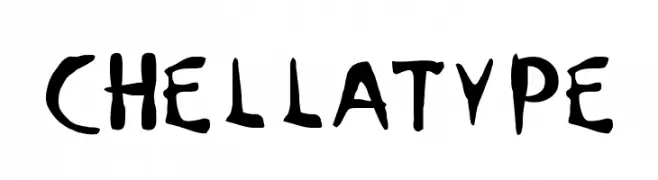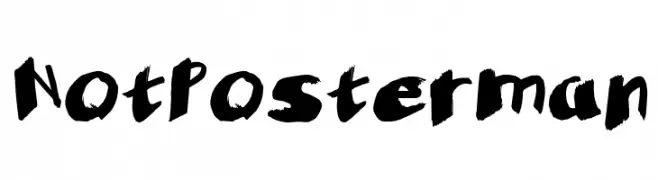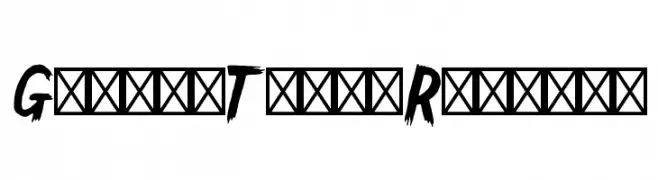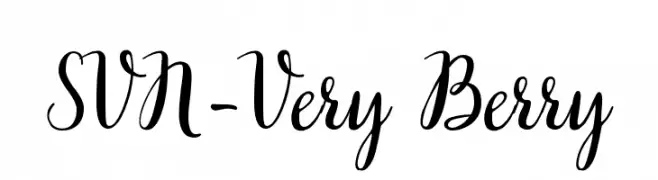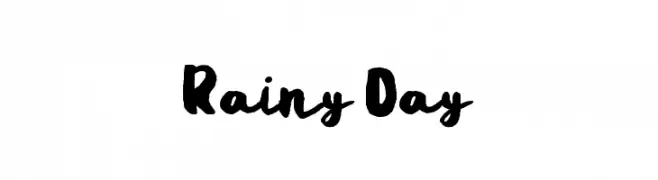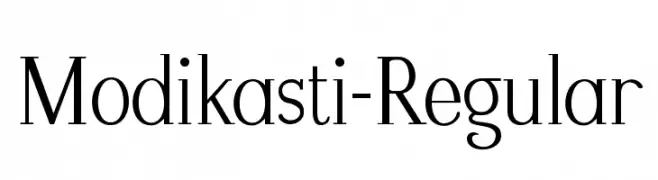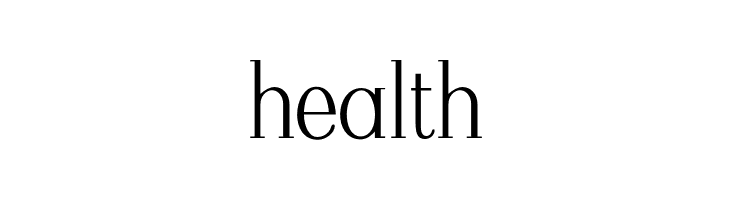
( Fonts by Juan de Urtubey )
A rugged, hand-drawn font with sharp, angular lines and a distressed look.
( Fonts by Liz Hoffmann )
A bold, expressive font with a hand-painted, dynamic style.
( Fonts by Itsm )
A bold, jagged font with a dynamic, hand-drawn appearance.
( Fonts by Tom Waterhouse )
A bold, hand-drawn font with dynamic, slightly slanted characters.
( Fonts by pixelbypixel )
A bold, playful font with a hand-drawn, cursive style.
( Fonts by Miranda Hayes )
A classic serif typeface with elegant, sharp serifs and a refined design.
( Fonts by Mariana Aguirre )
A classic serif font with elegant strokes and refined details.